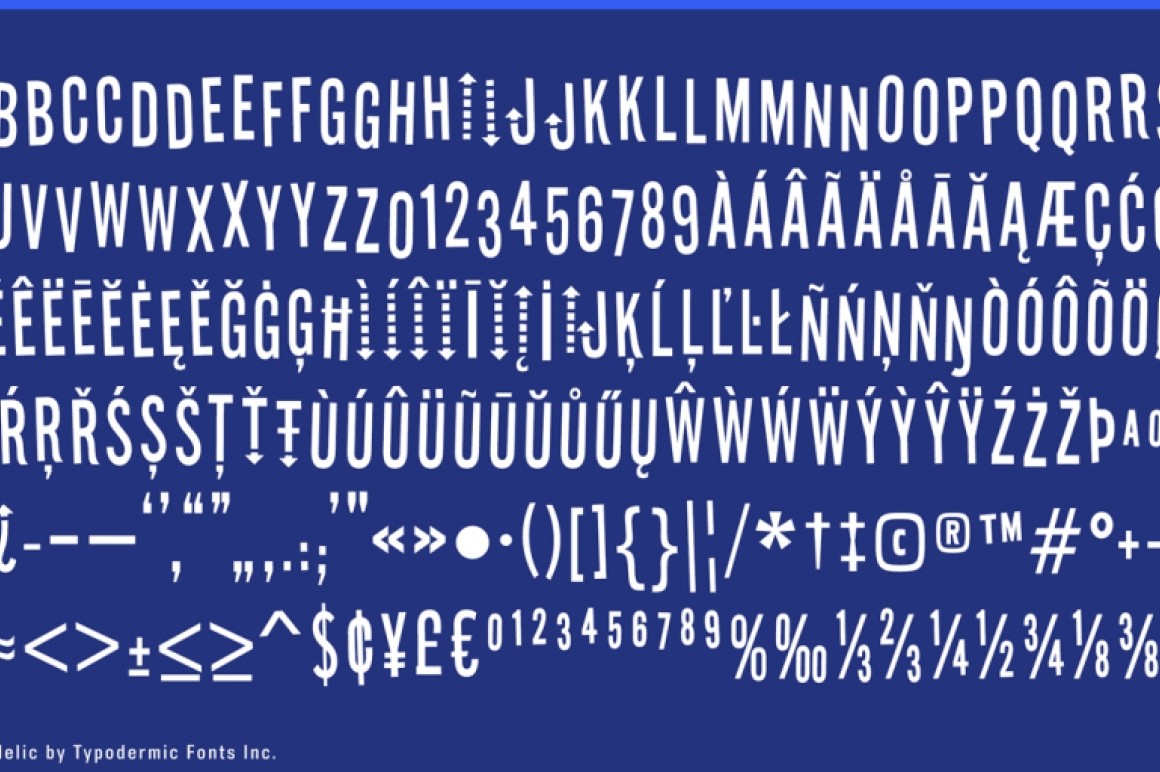
Stereofidelic
Stereofidelic is a buoyant, narrow headline font, created in 1999. The latest version has a lot of redrawn characters and a new set of alternates. In OpenType savvy applications, letters are automatically shuffled to create a more random appearance.